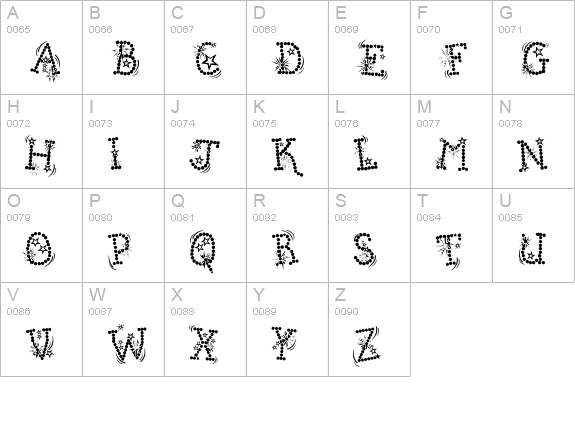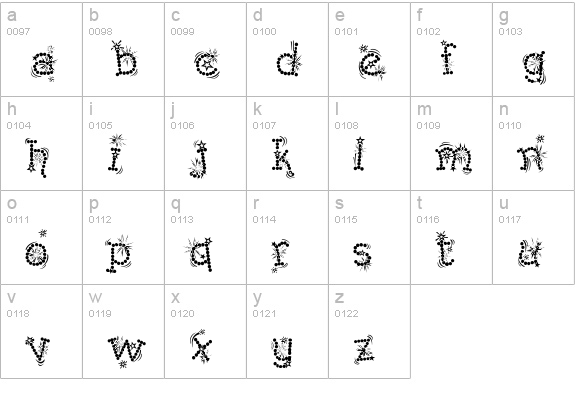
Introducing the magnificent Kingthings Whizzbang font, a true gem in the world of typography. This font combines the essence of elegance and playfulness, making it perfect for a wide range of creative projects. Kingthings Whizzbang features beautifully crafted letterforms that effortlessly dance across the page, captivating the reader's attention with its unique charm. Its bold strokes and stylish curves exude confidence and sophistication, adding a touch of personality to any design. What makes Kingthings Whizzbang even more remarkable is the fact that it is available for free! Yes, you read that right. This remarkable font can be freely downloaded at FontsMarket.com, ensuring that everyone can enjoy its beauty without any cost. Whether you're a professional designer looking to create stunning visuals or an enthusiast exploring the world of typography, Kingthings Whizzbang is an absolute must-have in your font collection. Its versatility knows no bounds, as it effortlessly adapts to various projects such as logos, branding, posters, invitations, and so much more. With Kingthings Whizzbang, your designs will truly come to life, leaving a lasting impression on your audience. So don't miss out on this incredible opportunity to enhance your creative endeavors with a font that is both captivating and freely available. Download Kingthings Whizzbang today and let your imagination soar to new heights.